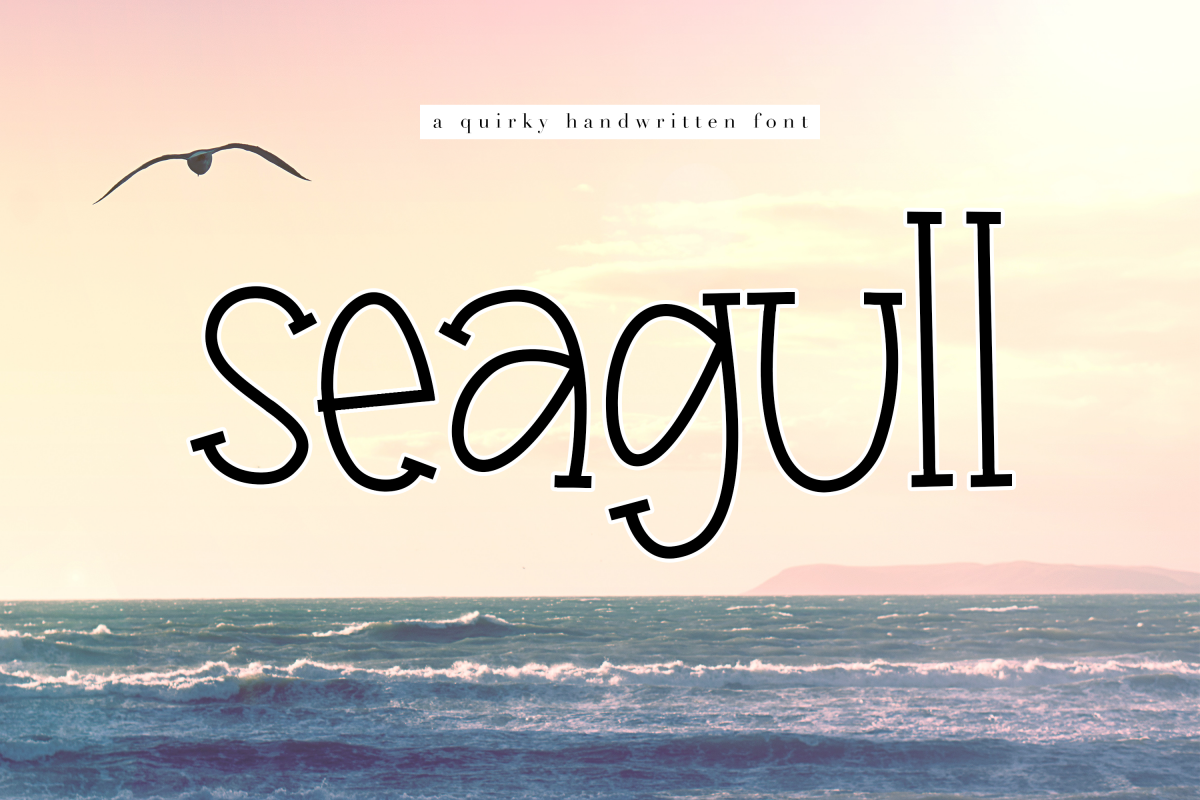
Seagull - A Fun Handwritten Font
Seagull
Sailboat is a fun serif font with a quirky design.
This font is perfect for quotes, headings, blogs, logos, invitations and more!
This font does include accent characters.